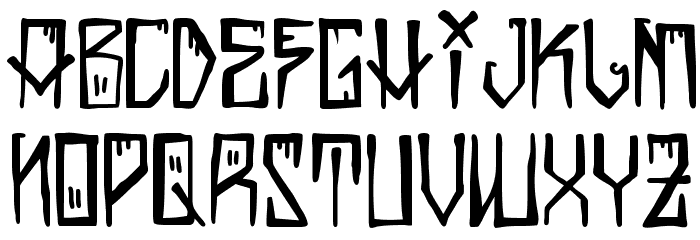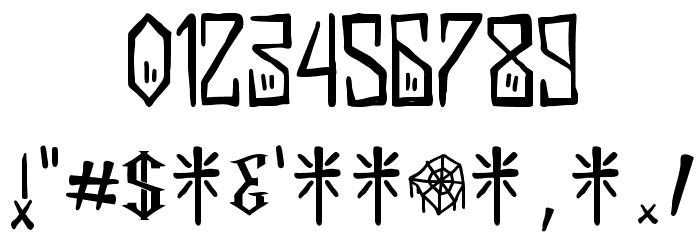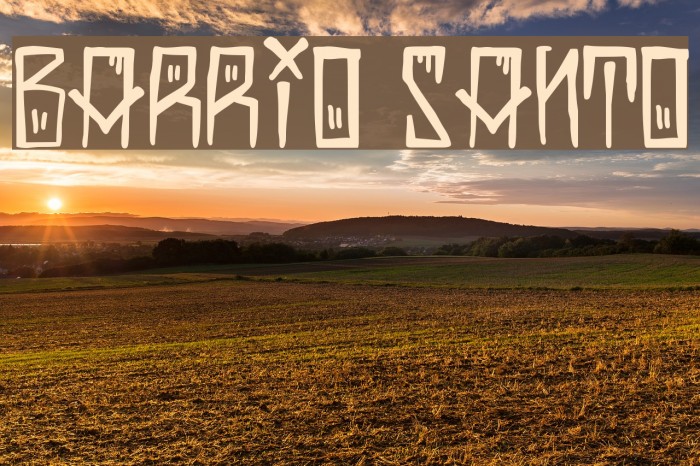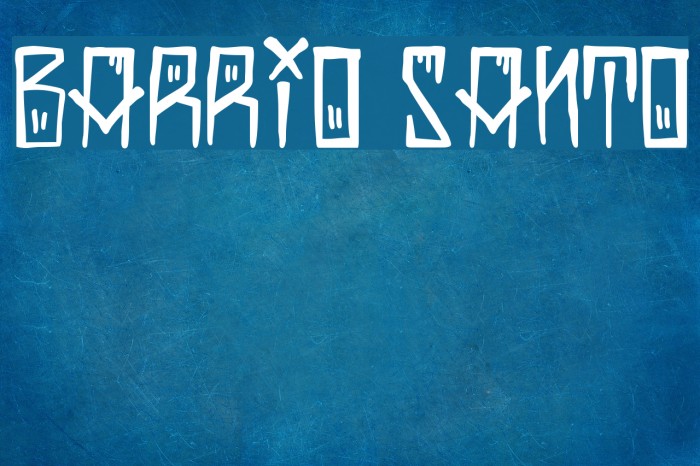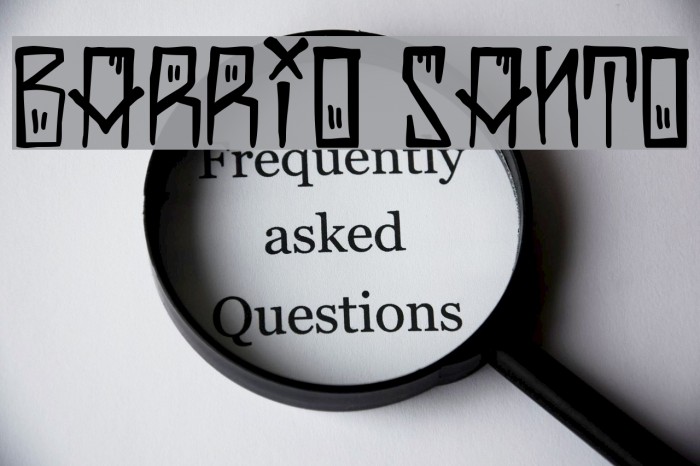
Barrio Santo Font
This font features a bold and edgy design with a distinctly urban and graffiti-inspired aesthetic. The characters are angular and sharp, with a hand-drawn appearance that adds a raw and artistic feel. The uppercase and lowercase letters maintain a consistent style, with elongated vertical strokes and unique embellishments that give each character a distinctive look. The numbers and special characters follow the same design principles, ensuring a cohesive appearance across all elements. This font's boldness and unique style make it stand out, perfect for projects that require a strong visual impact.
An edgy, graffiti-inspired font with bold, angular characters and a hand-drawn aesthetic.
- Proposed Projects: Ideal for street art projects, urban-themed designs, album covers, posters, and branding that requires a bold statement.
- Overall Style: Urban, Graffiti, Artistic
- Use Case: Logos, Posters, Album Covers, Street Art